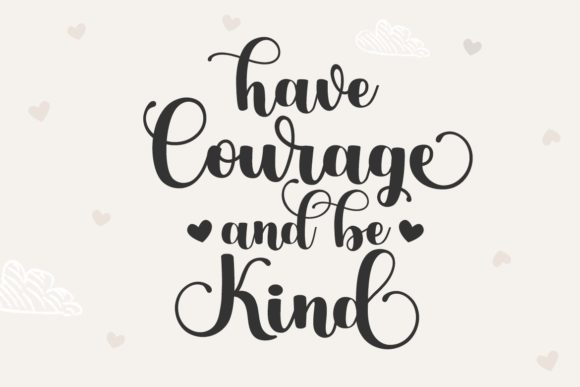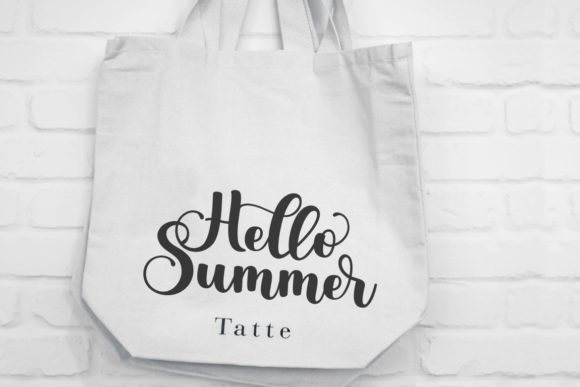
Asterik Font
db-ku.com - Script & Handwritten -- Asterik is an elegant and bold script font, that features sweet and delicate swashes. This original look will appeal to a wide range of crafty ideas, from letterheads and titles, to stationery. This font is PUA encoded which means you can access all of the glyphs and swashes with ease!